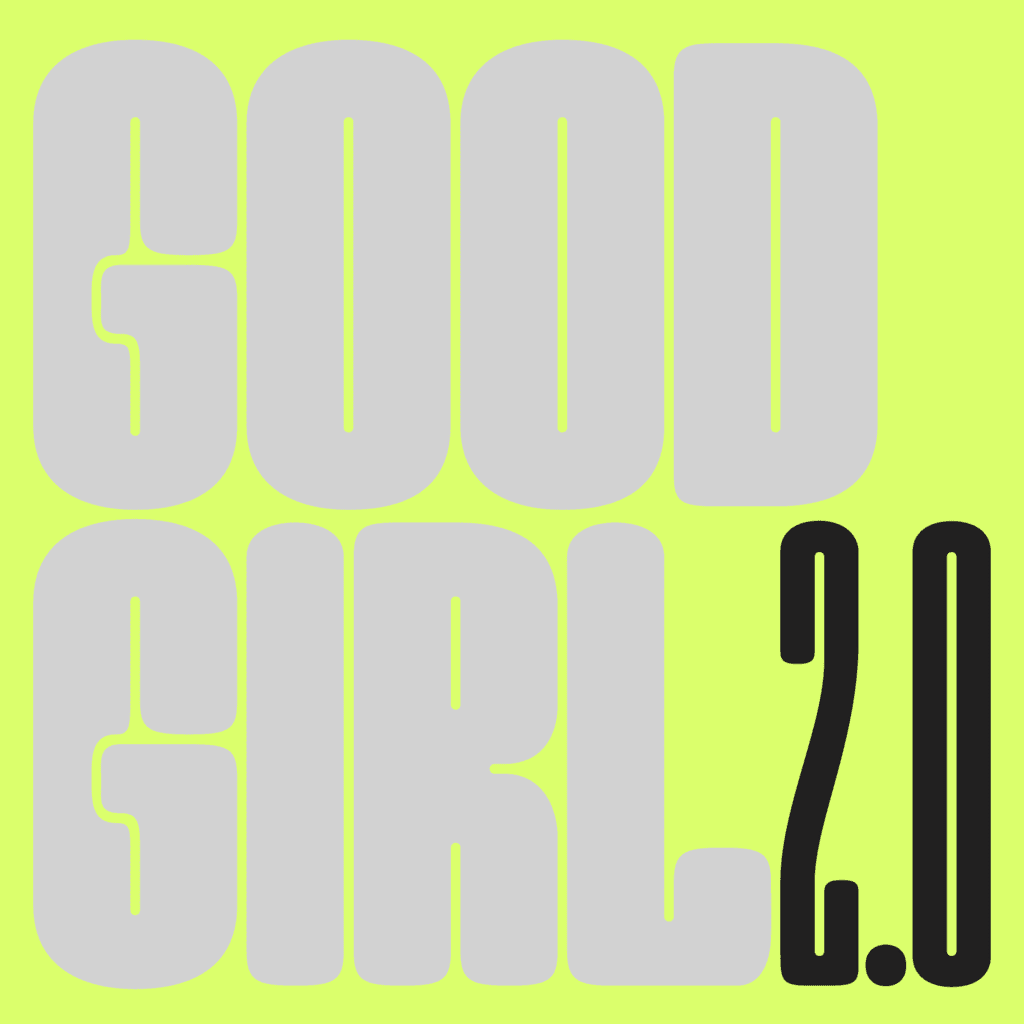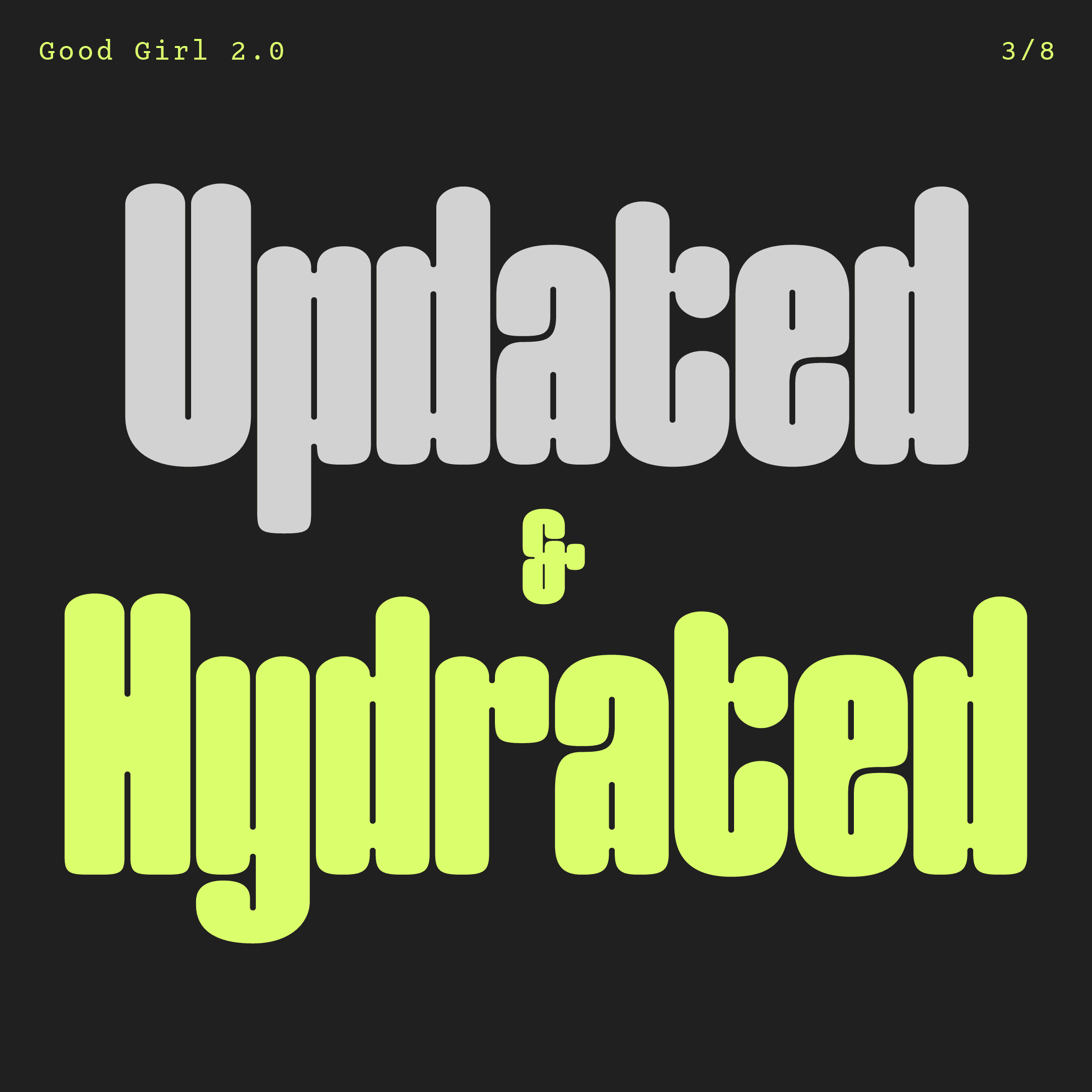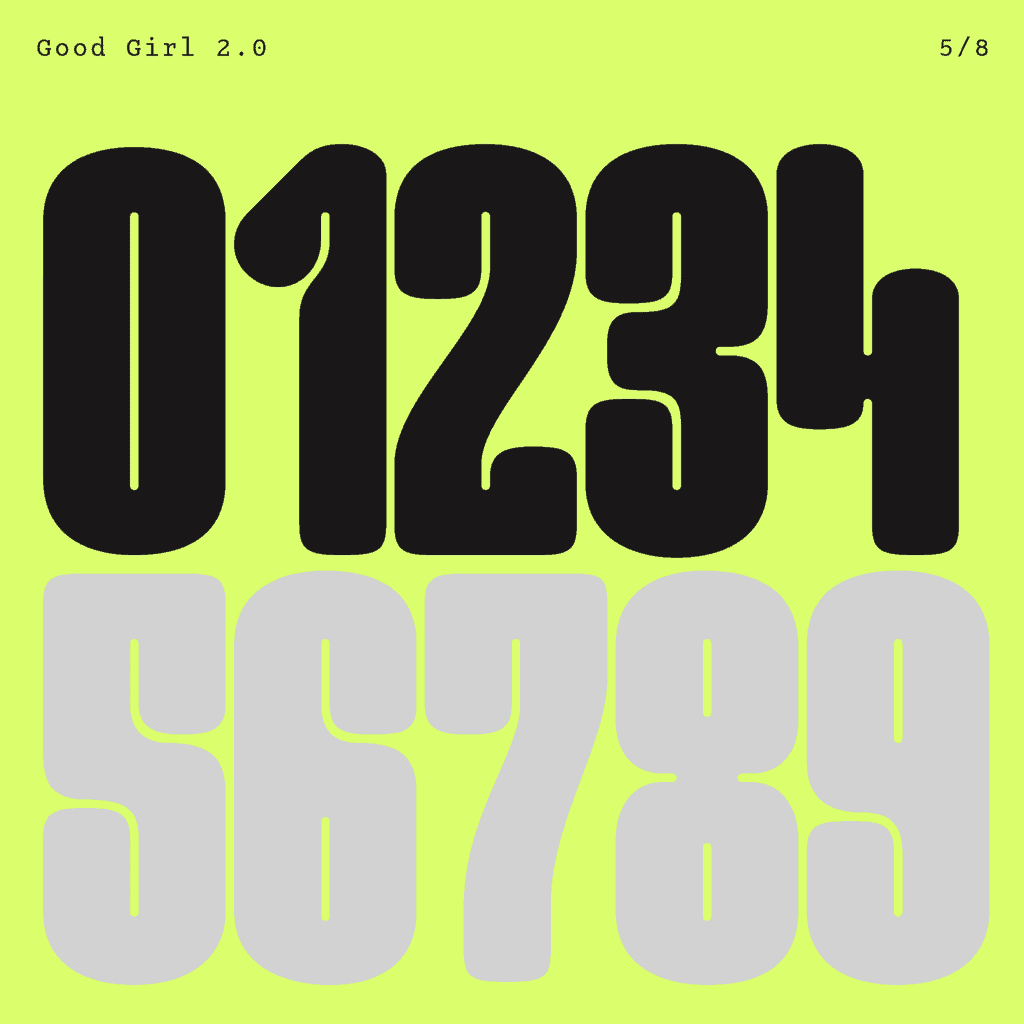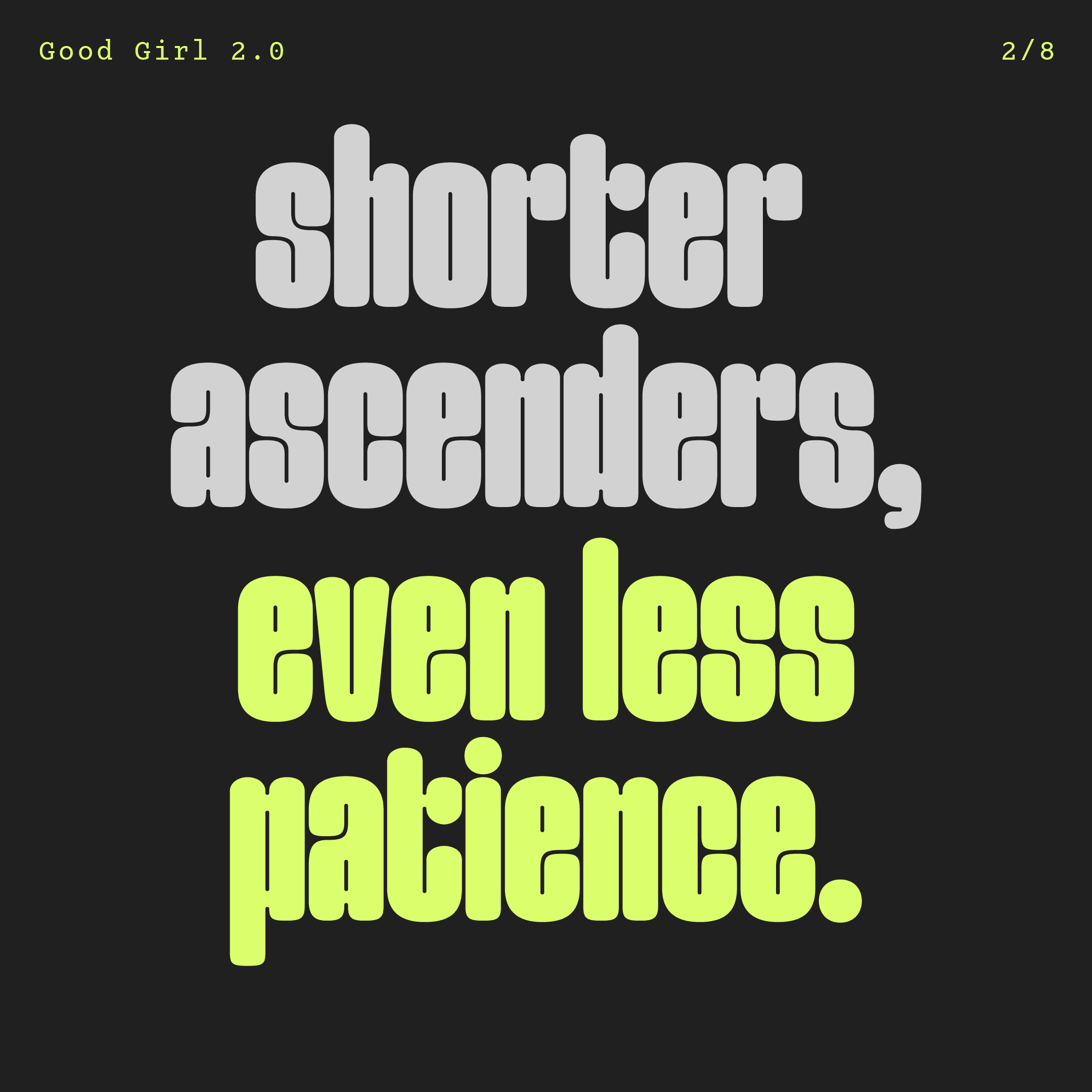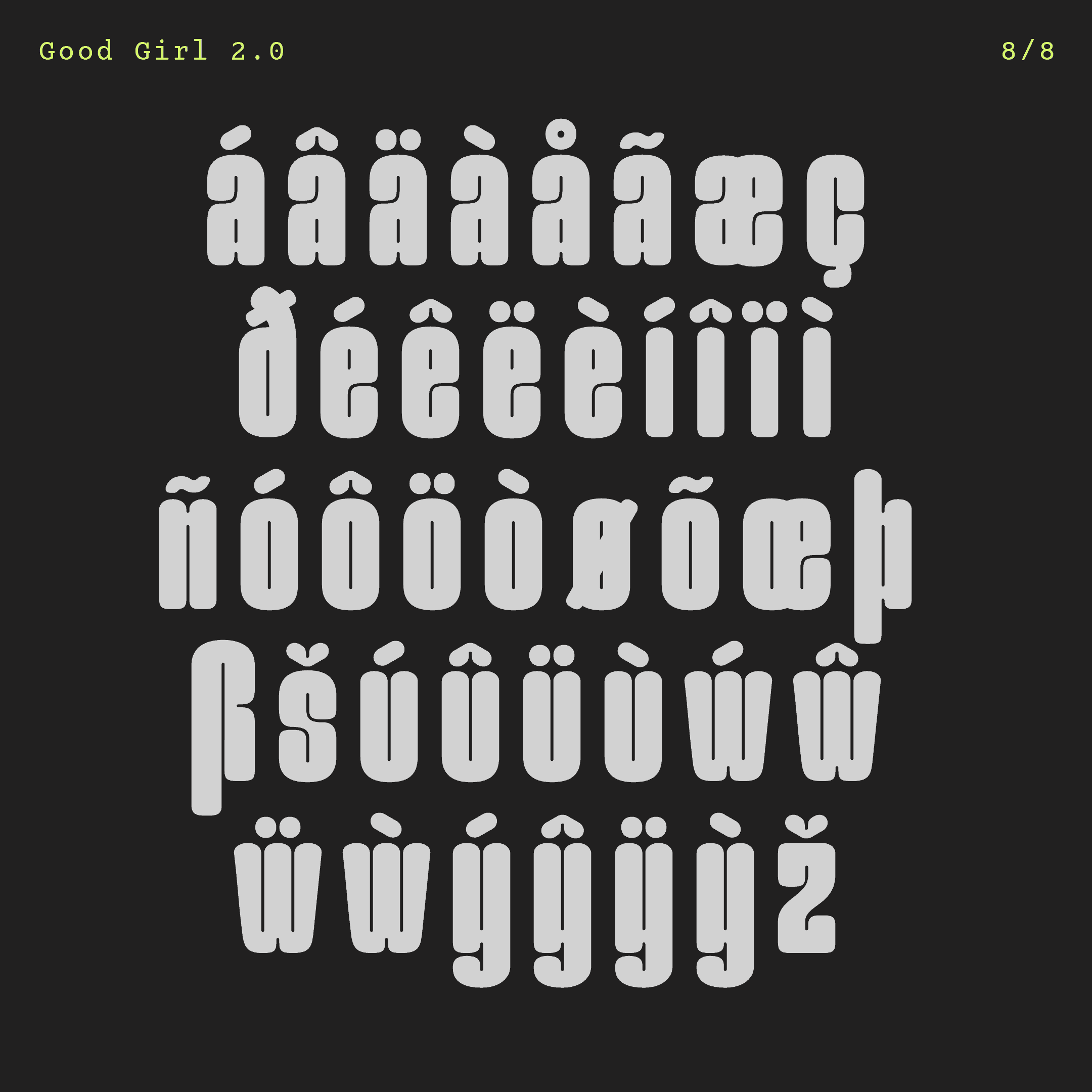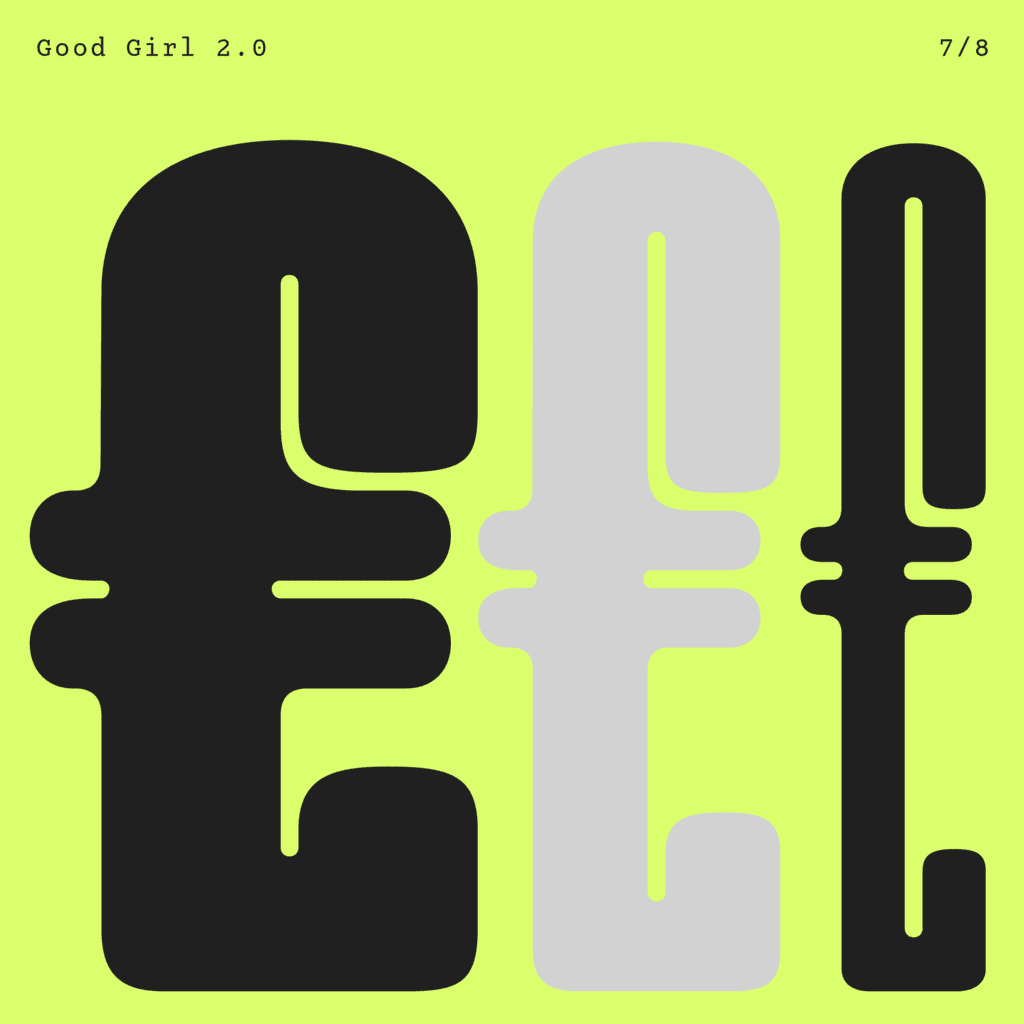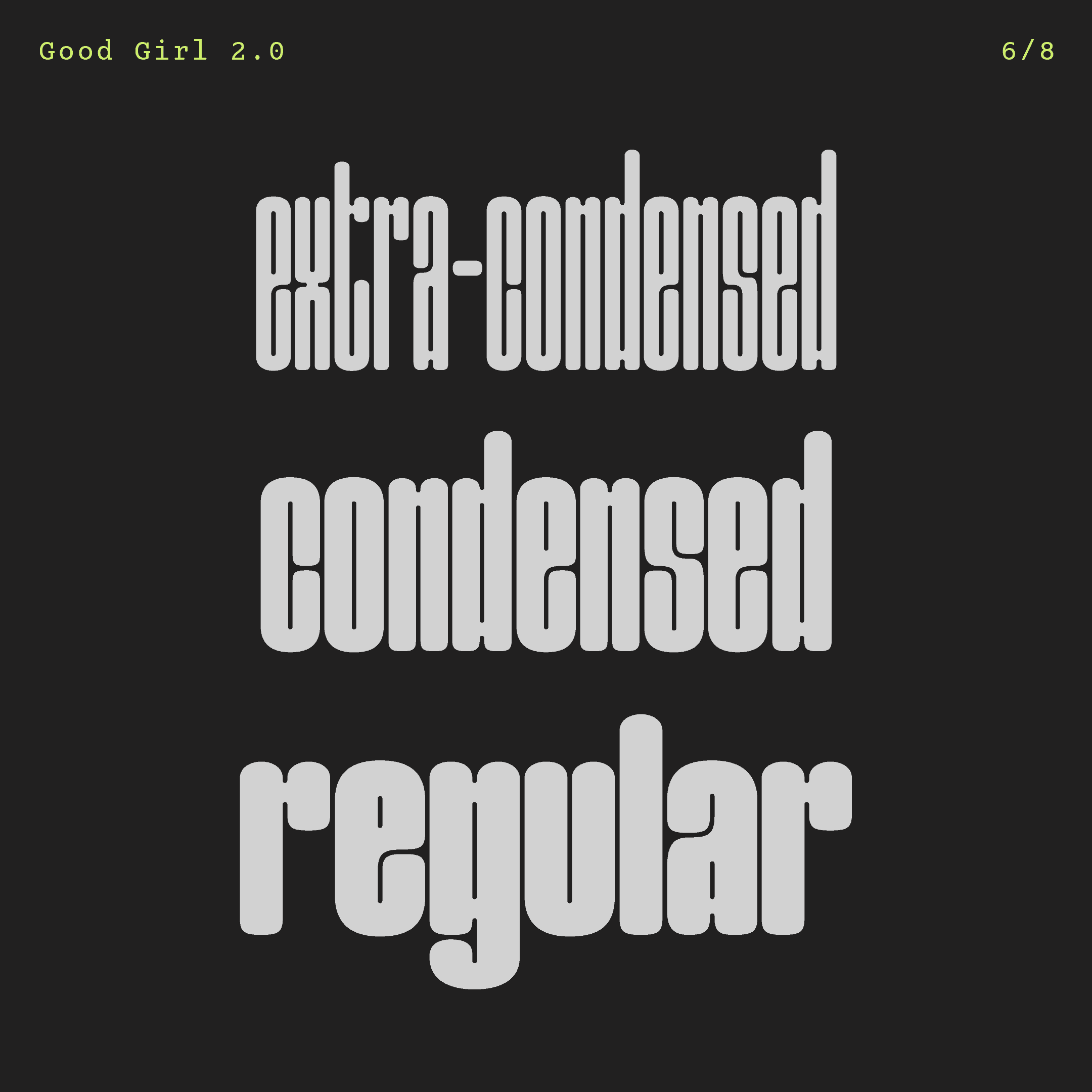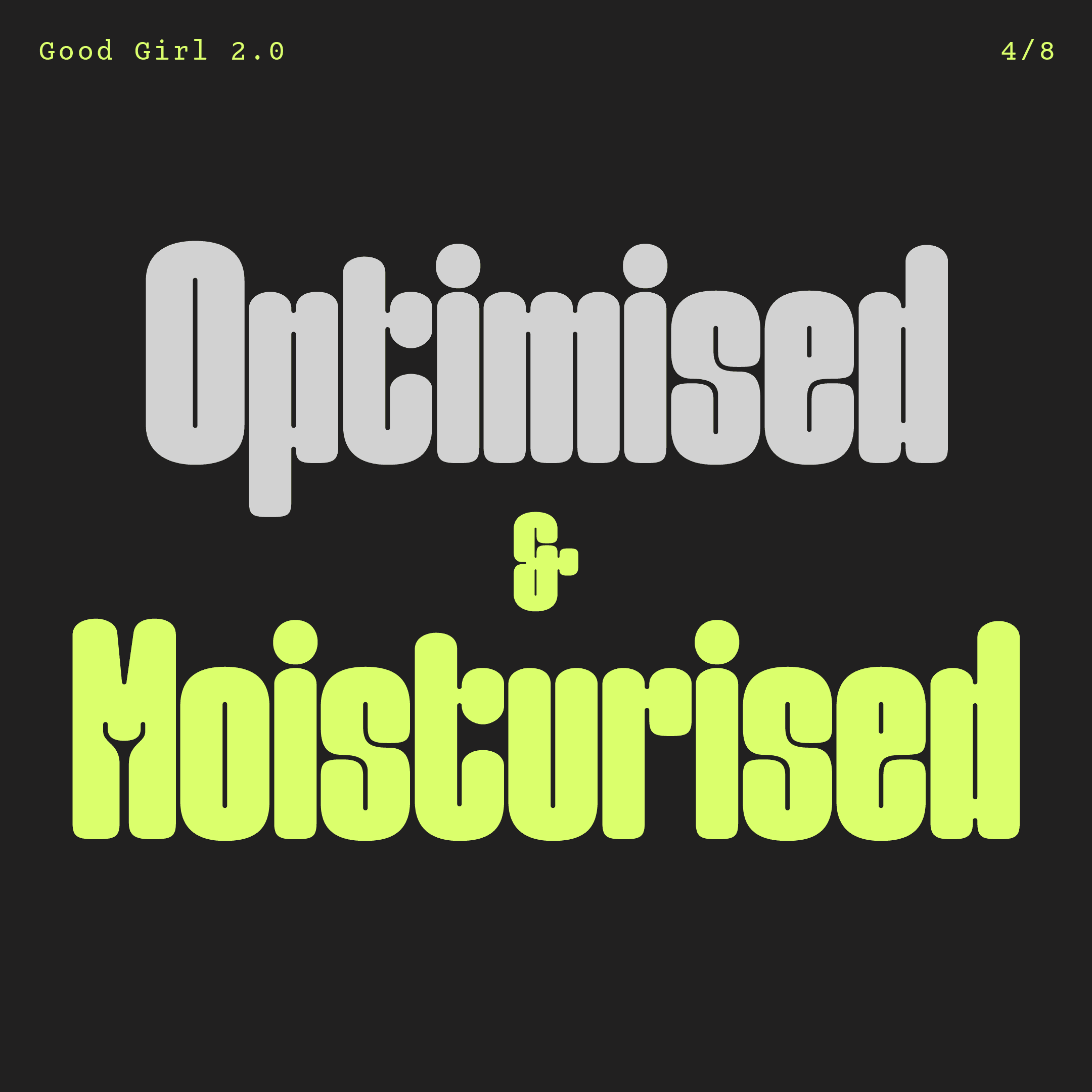
Good Girl
Good Girl is a bold and playful display typeface that playfully challenges social norms. Reminiscent of Guerrilla Girls prints and protest art, its loud, heavy presence is wrapped in bright hues, intentionally contrasting societal ideals of demure femininity.
Featuring small twenty-unit counters and narrow spacing consistently across its family, Good Girl exudes a compact and dense nature, ensuring maximum coverage on both print and digital platforms. This makes it perfect for creating bold, eye-catching statements in headlines, posters, and impactful designs.
Good Girl is a bold and playful display typeface that playfully challenges social norms. Reminiscent of Guerrilla Girls prints and protest art, its loud, heavy presence is wrapped in bright hues, intentionally contrasting societal ideals of demure femininity.
Featuring small twenty-unit counters and narrow spacing consistently across its family, Good Girl exudes a compact and dense nature, ensuring maximum coverage on both print and digital platforms. This makes it perfect for creating bold, eye-catching statements in headlines, posters, and impactful designs.